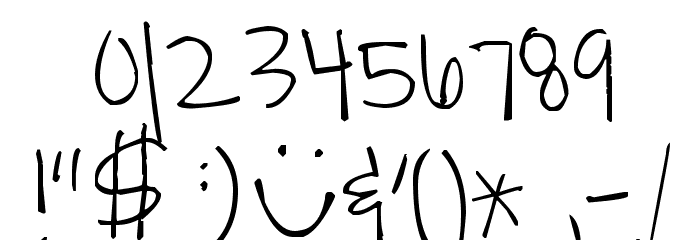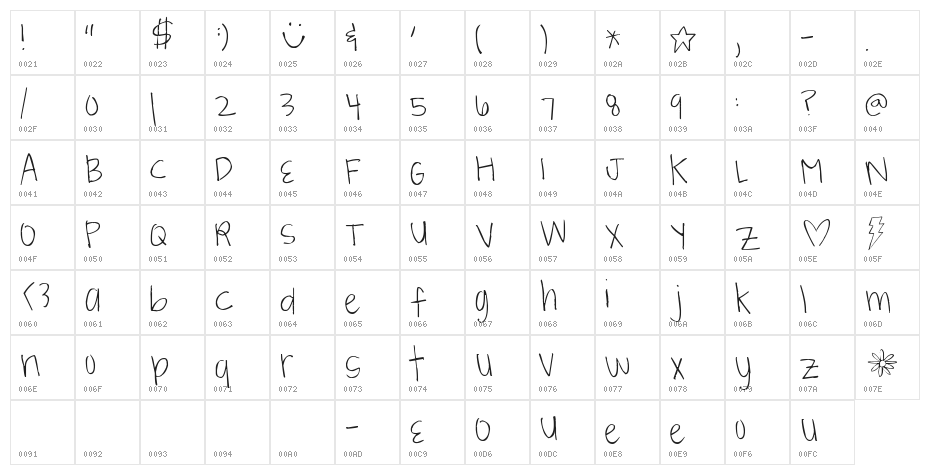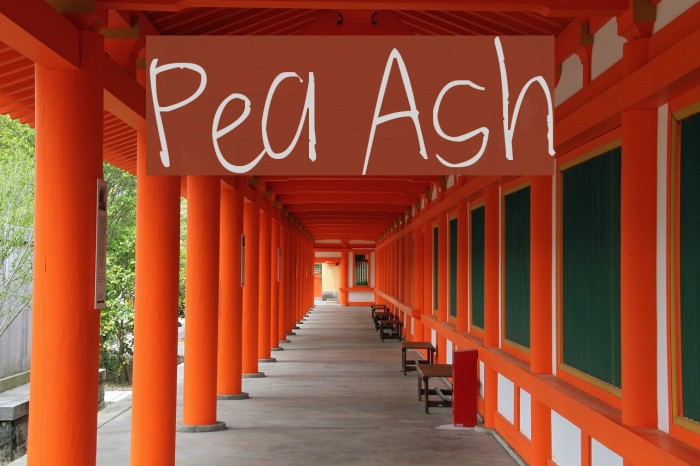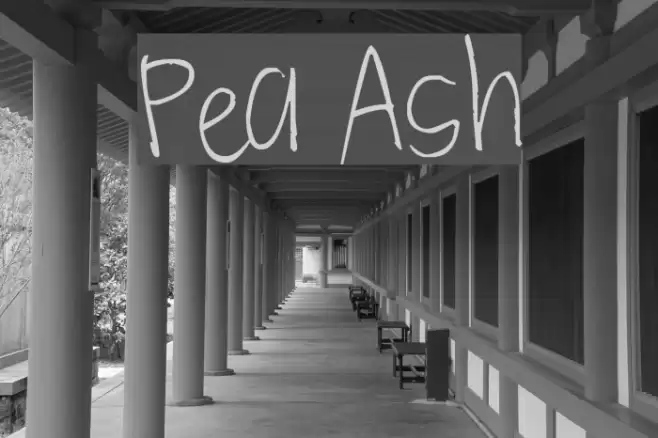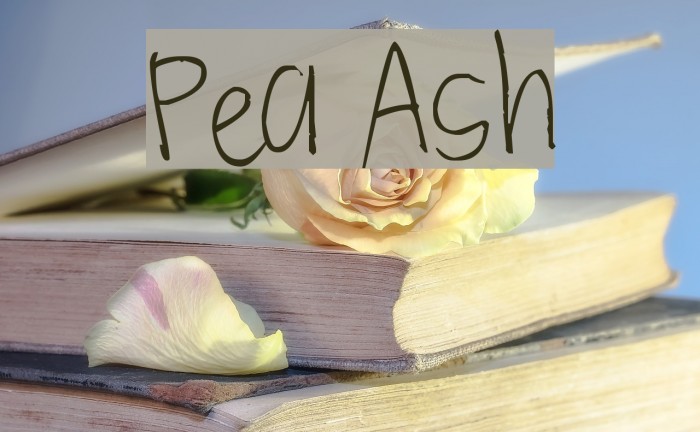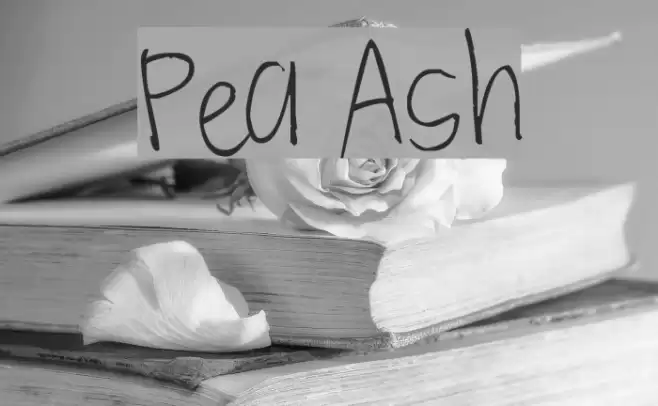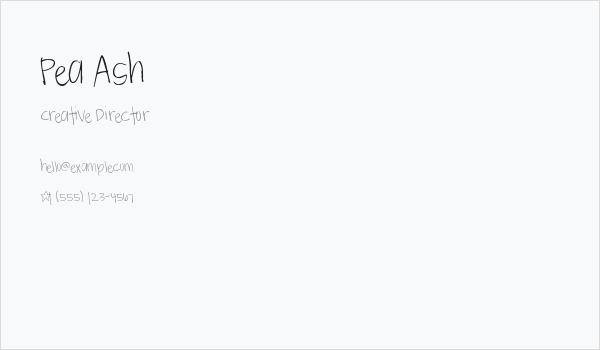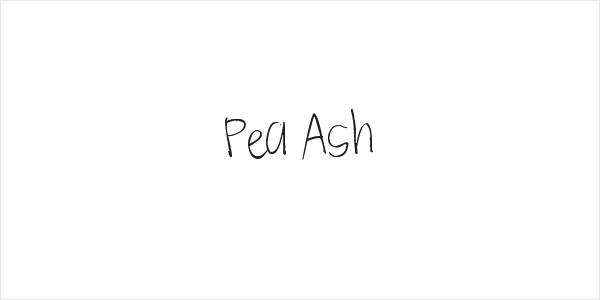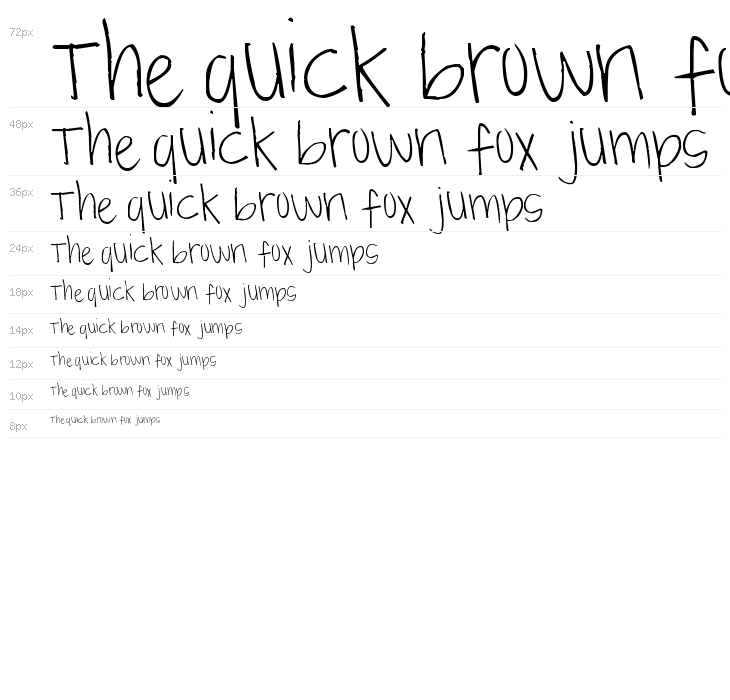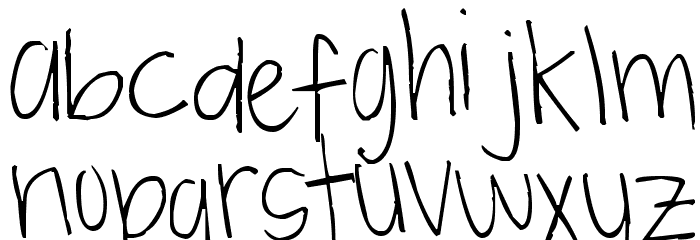
Pea Ash Font
Pea Ash Description
This font exudes a playful and casual handwritten style, characterized by its irregular strokes and informal appearance. The letters are slightly tilted, giving a dynamic and lively feel. The strokes vary in thickness, adding to the handwritten charm, while maintaining legibility. The characters are well-spaced, ensuring readability, and the overall look is friendly and approachable. This font captures the essence of personal notes or casual messages, making it ideal for projects that require a touch of personality and warmth.
| Use Case | Greeting cards, Personal notes, Informal invitations |
| Proposed Projects | Ideal for greeting cards, personal notes, informal invitations, and playful branding projects. |